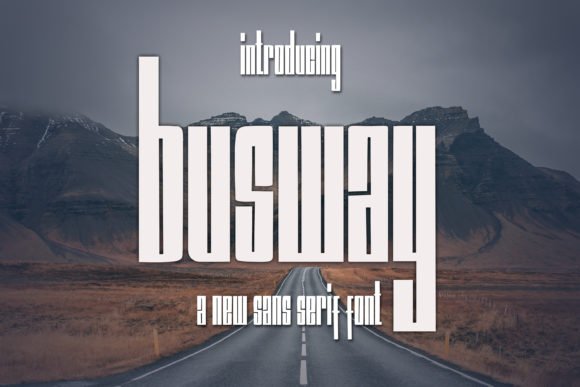
Discover the Power of Busway Font
Have you ever stared at a blank canvas, eager to bring your creative vision to life, but struggling to find the perfect font to match your tone? This is where the magic of Busway Font comes in – a bold and incredibly robotic display font designed to elevate any creation.
Whether you’re crafting a futuristic sci-fi novel, designing a sleek tech startup logo, or simply looking to add a touch of edginess to your next project, Busway Font is the perfect asset to have in your arsenal. This versatile font is not just a tool, but a partner in crime that can transform your ideas into visually stunning masterpieces.
As a designer, you know how a well-chosen font can make all the difference. That’s why we’re excited to introduce you to Busway Font – a game-changing addition to your fonts’ library that’s sure to take your designs to the next level.
Busway Font Key Features
- Font Family: Busway is a sans-serif font family designed specifically for signage and wayfinding applications.
- Font Size and Resolution: Optimized for use at large font sizes (up to 300 points) and high resolutions (up to 300 DPI), ensuring readability and clarity in various environments.
- Unique Characteristics: Busway’s distinctive design features a clean, modern aesthetic with a subtle rounded edge, making it highly legible and visually appealing.
- Character Set: Includes a comprehensive character set, including uppercase and lowercase letters, numerals, punctuation, and symbols, as well as additional characters for international use.
Busway Font Review
Overall, I was quite excited to try out the Busway Font, but as I dug deeper, I found that it has its strengths and weaknesses.
- Unique and modern design aesthetic: The Busway Font has a distinctive look that sets it apart from more traditional fonts. I appreciate the attention to detail and the effort that went into creating something fresh.
- Good for digital use: The font is well-suited for digital applications, such as website headers and mobile apps, where a clear and legible font is essential.
- Limited versatility: While the Busway Font is great for digital use, it may not be the best choice for print materials, such as business cards or brochures, where a more traditional font may be more effective.
- May be too bold for some uses: The font’s bold style can be overwhelming in certain contexts, such as body text or small headings.
Overall, I think the Busway Font is a solid choice for designers looking to add some visual interest to their digital projects. However, it may not be the best fit for every design scenario.
Tips for Getting the Most Out of Busway Font
Here are some tips to help you get the most out of Busway Font:
- Use Busway Font for headings and titles to create a bold and modern look.
- Pair Busway Font with other sans-serif fonts for a clean and minimalist aesthetic.
The Busway Font is designed to be highly customizable, with features such as font weight, style, and size control. You can use font editing software or tools, such as FontForge or FontLab, to modify the font’s characteristics and create custom variants. Additionally, you can use CSS or other styling languages to customize the font’s appearance in digital applications.